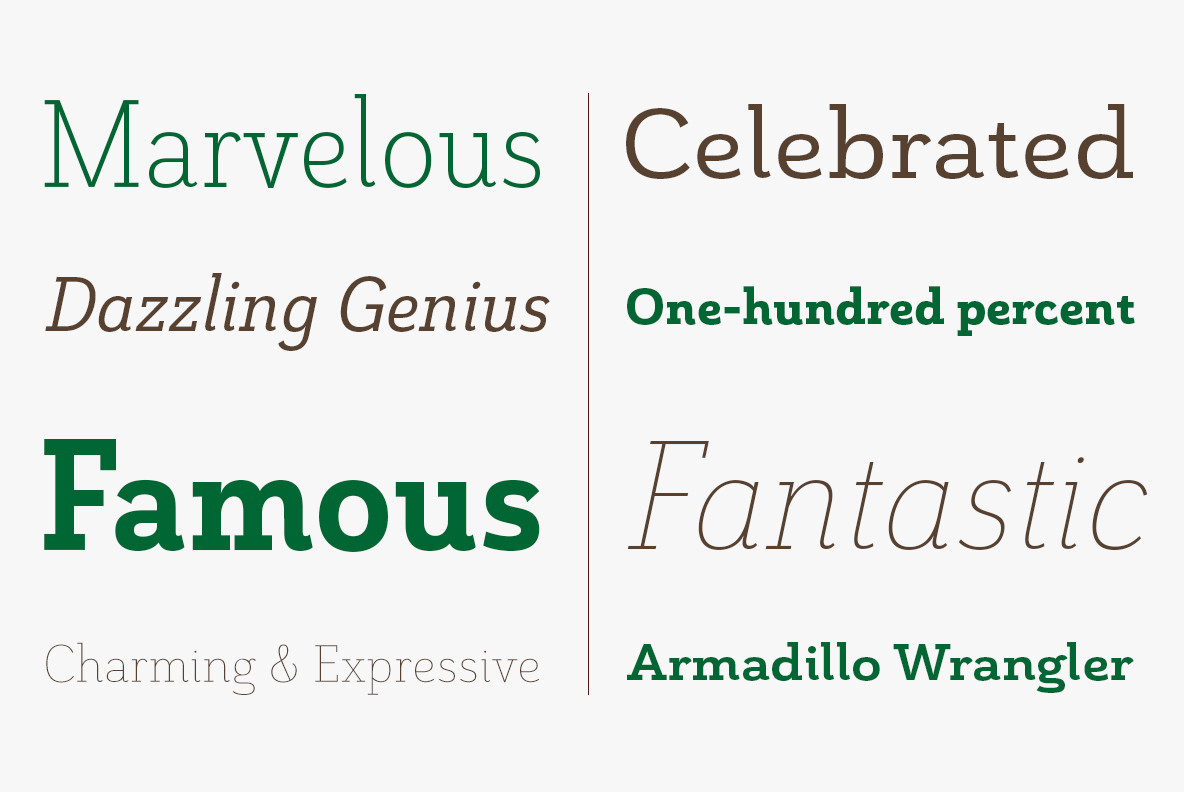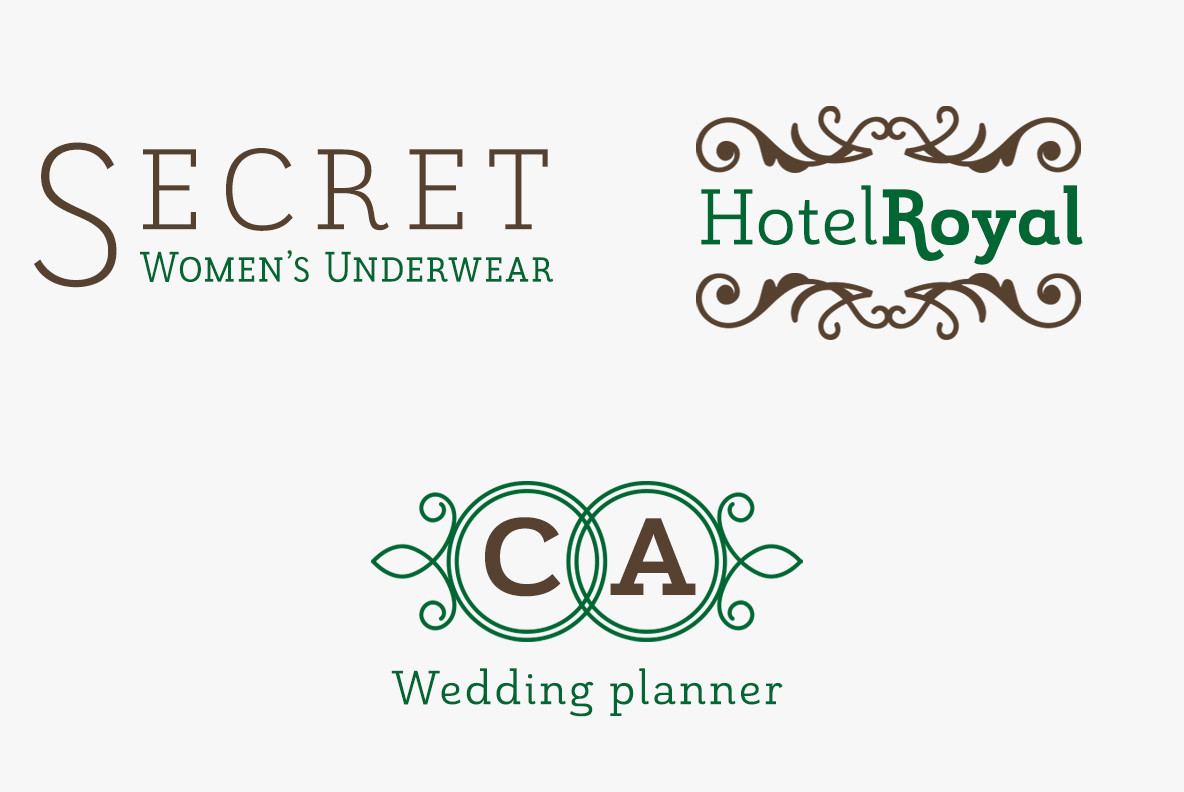
Grenale Slab Font
Any of Slab’s weights also provide a well-matched companion to its original counterparts, Grenale #2 and the original Grenale.
It’s time to think high-class. Graceful and assured, the carefully crafted forms of Grenale Slab step pleasantly onto each page with elegant charm. Include its range of alternate glyphs, and this chic font is a superb choice for bringing a far more refined look to your copy.